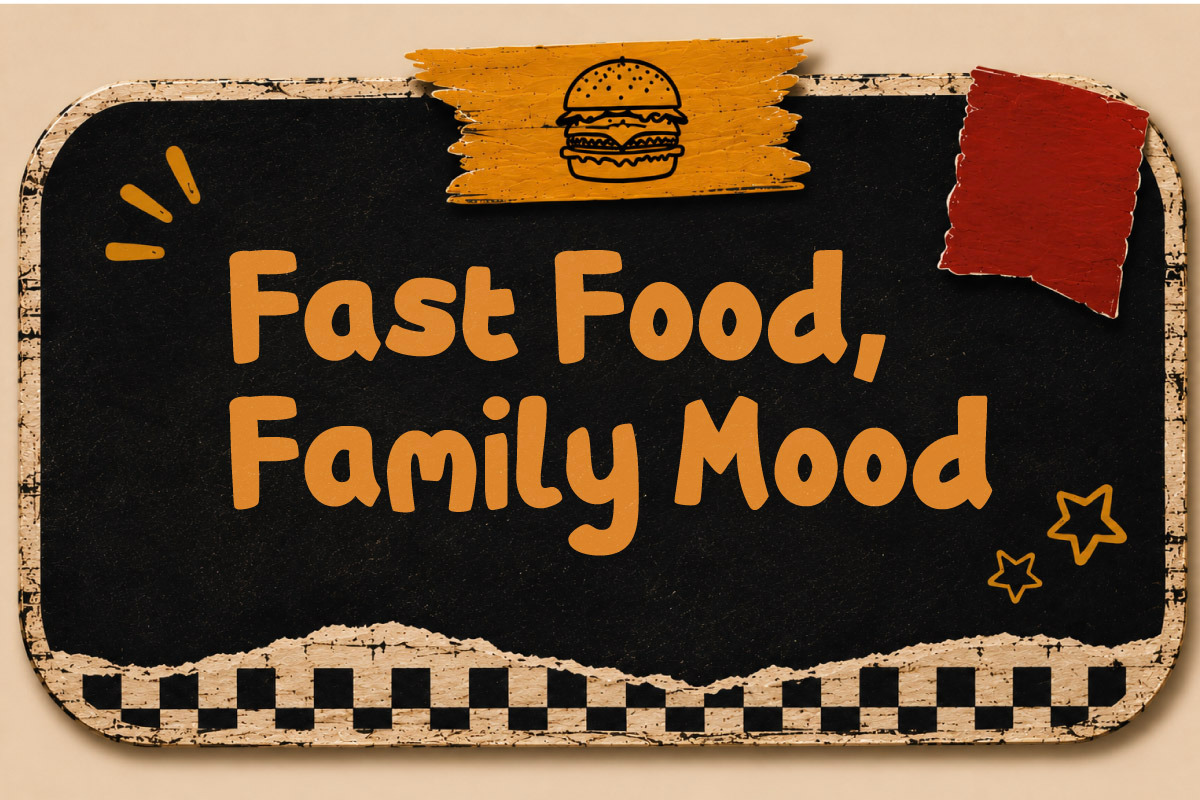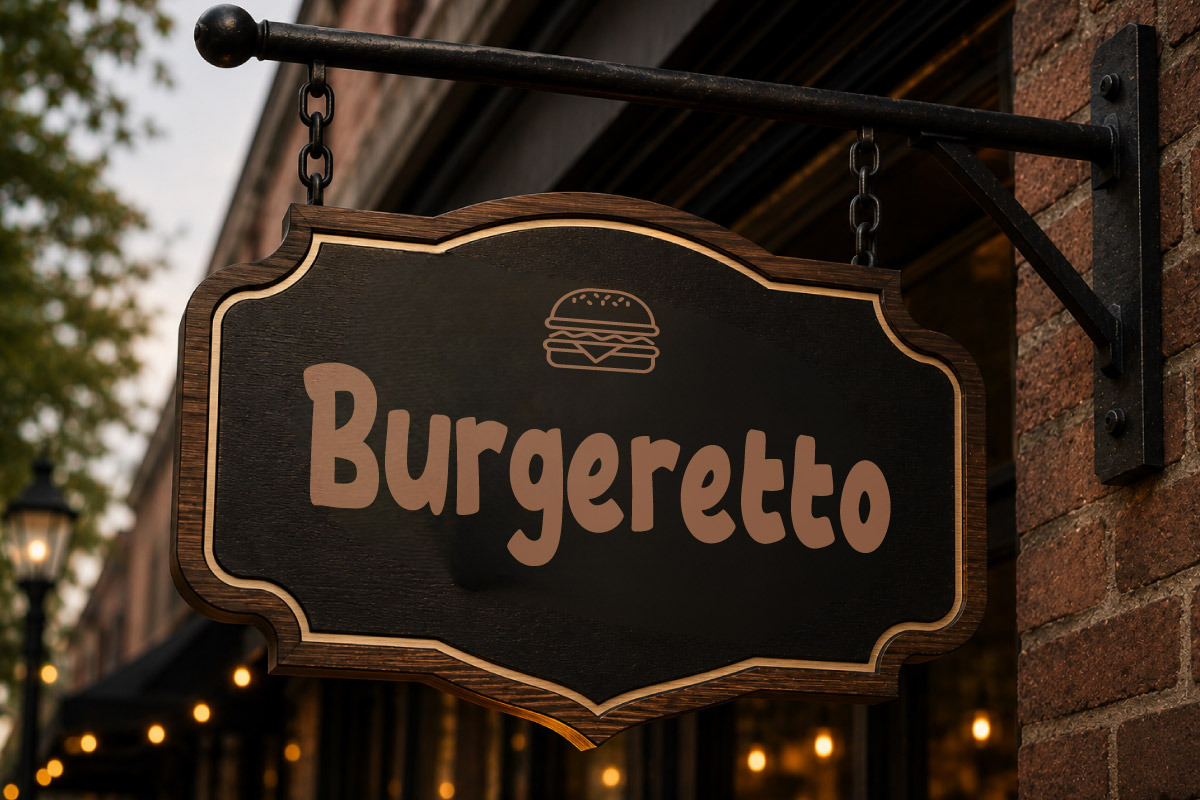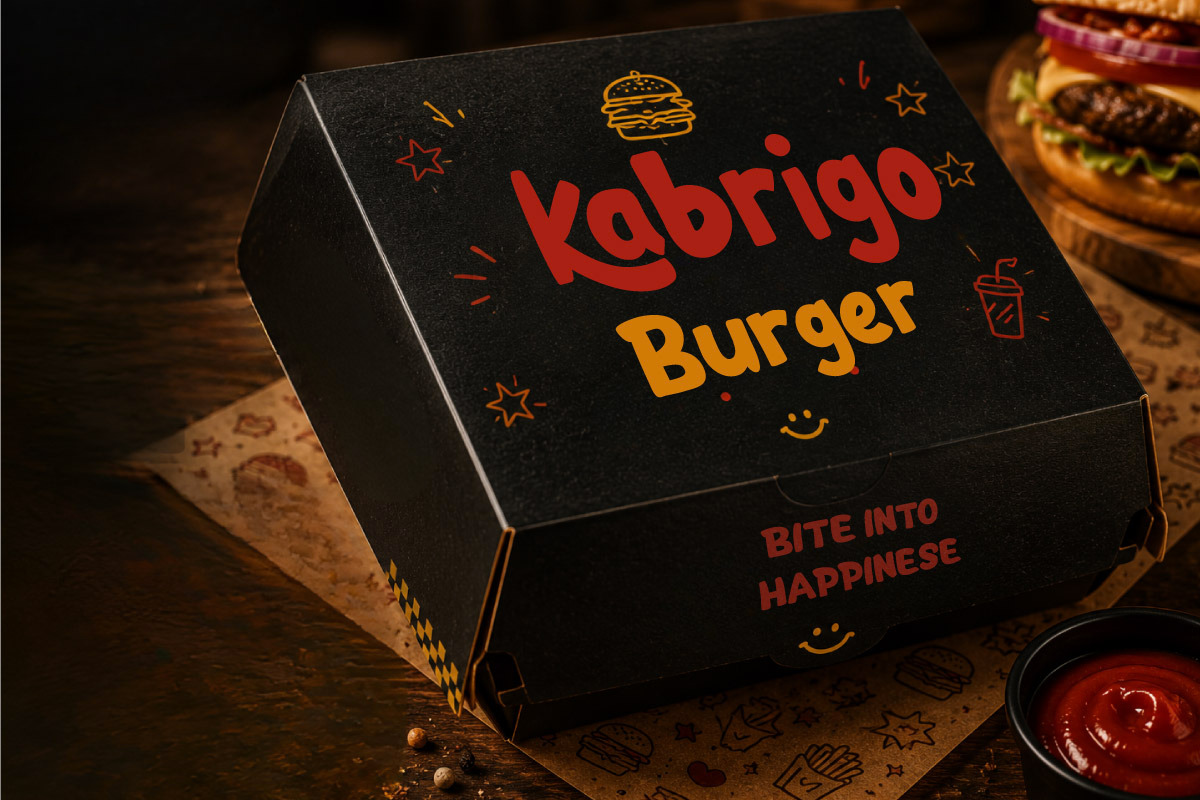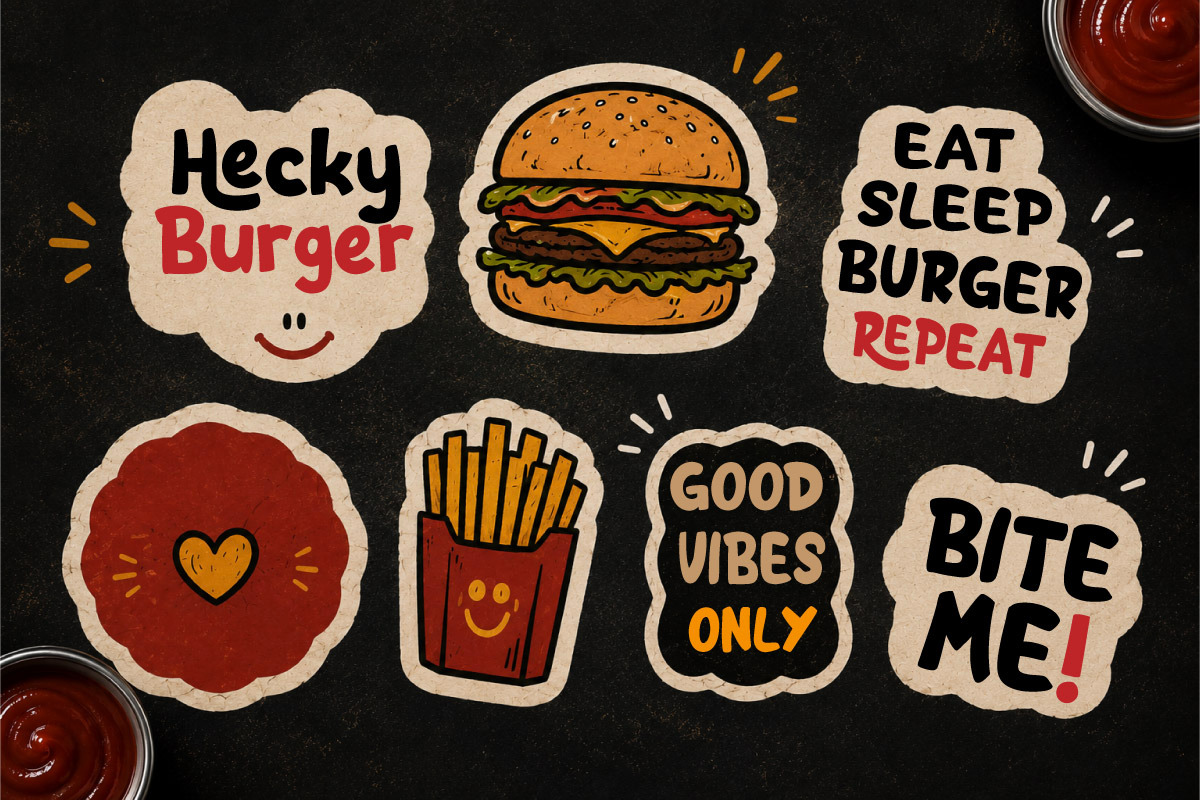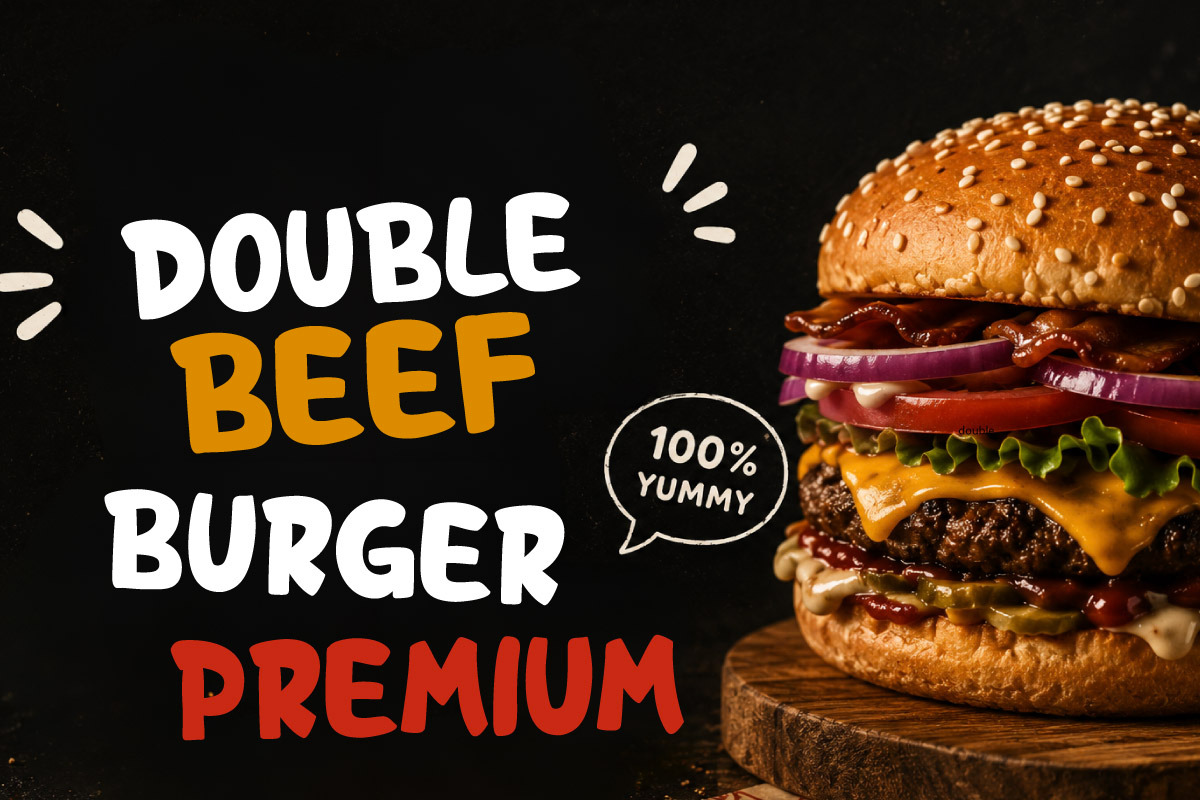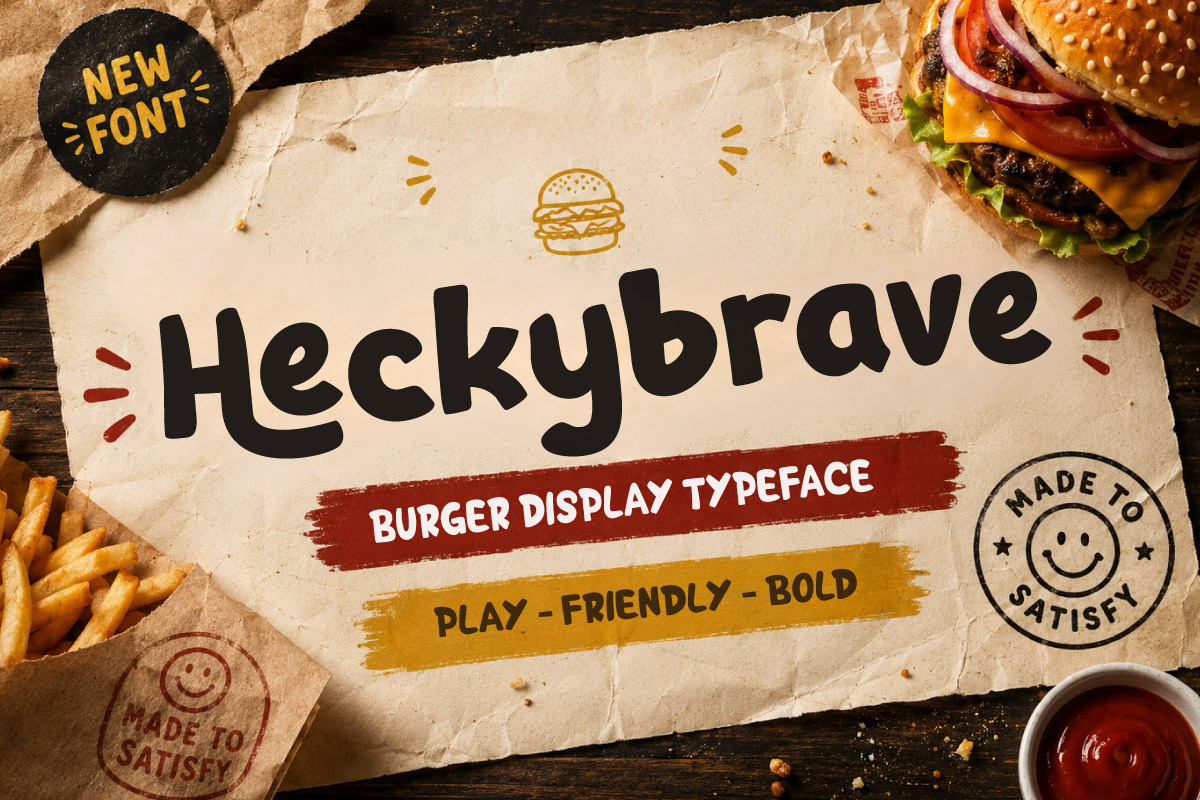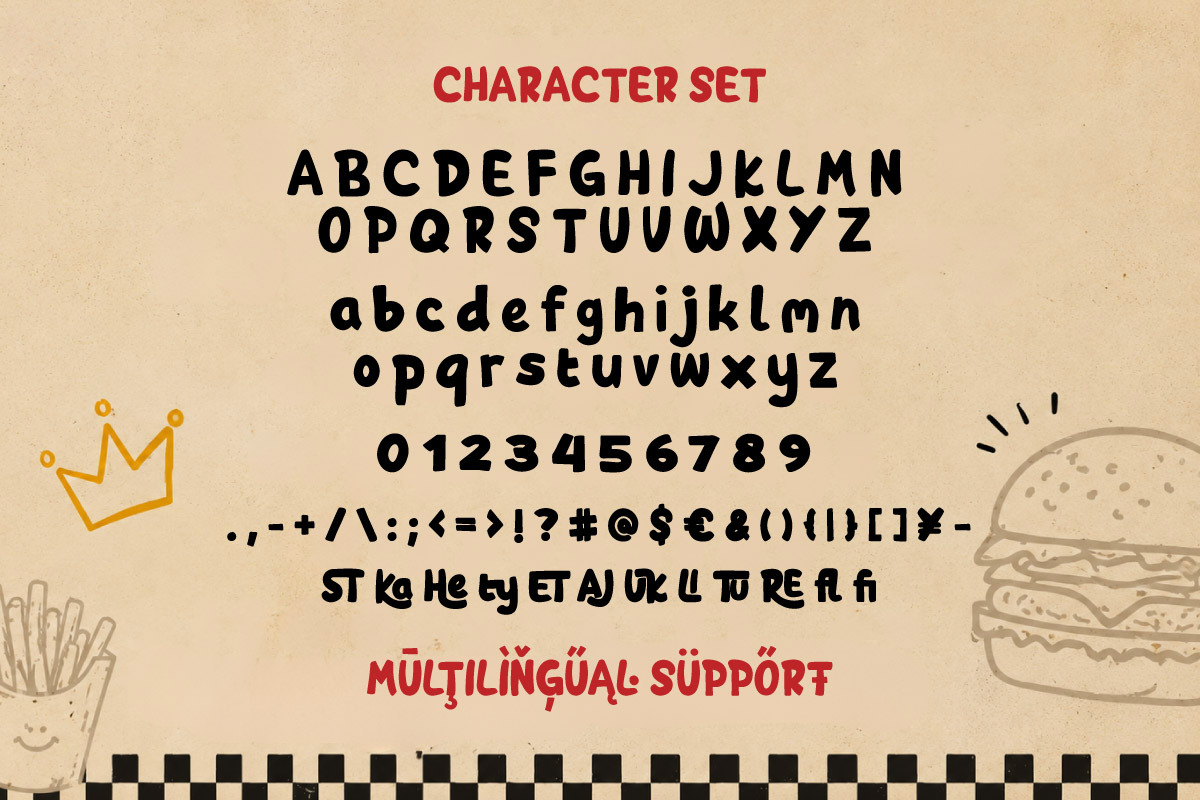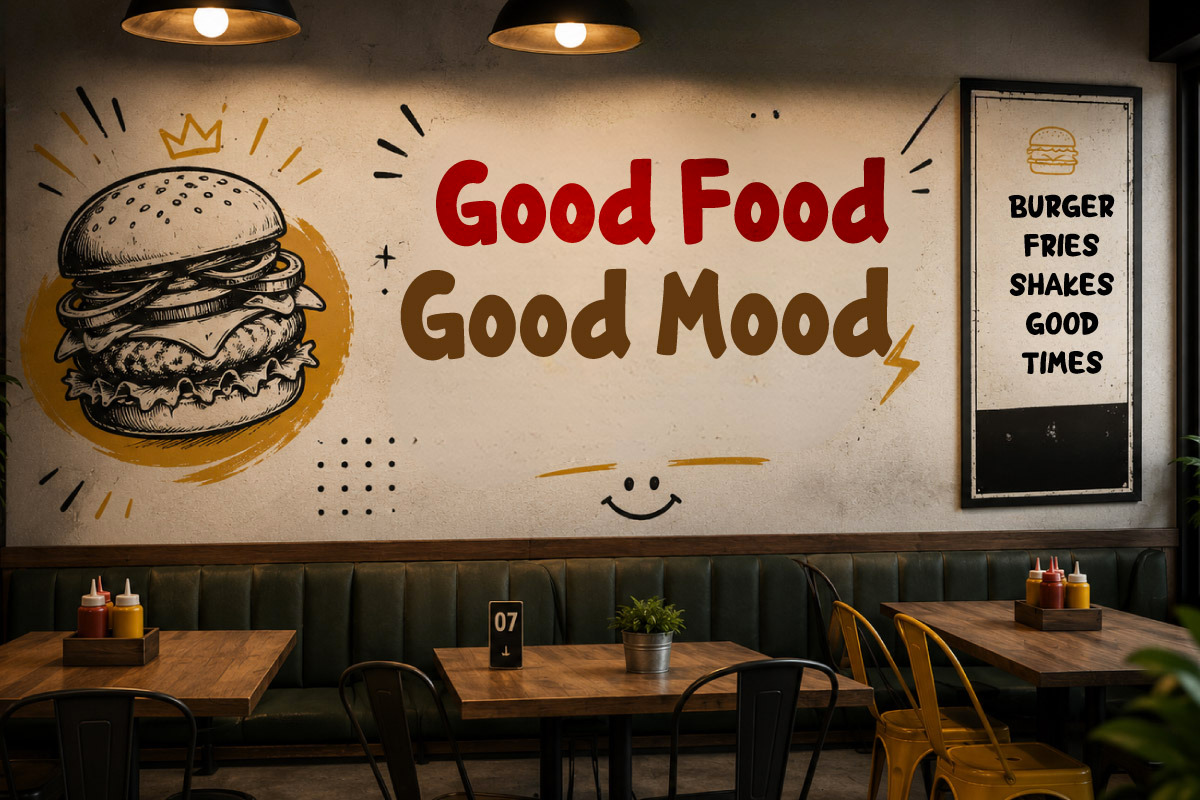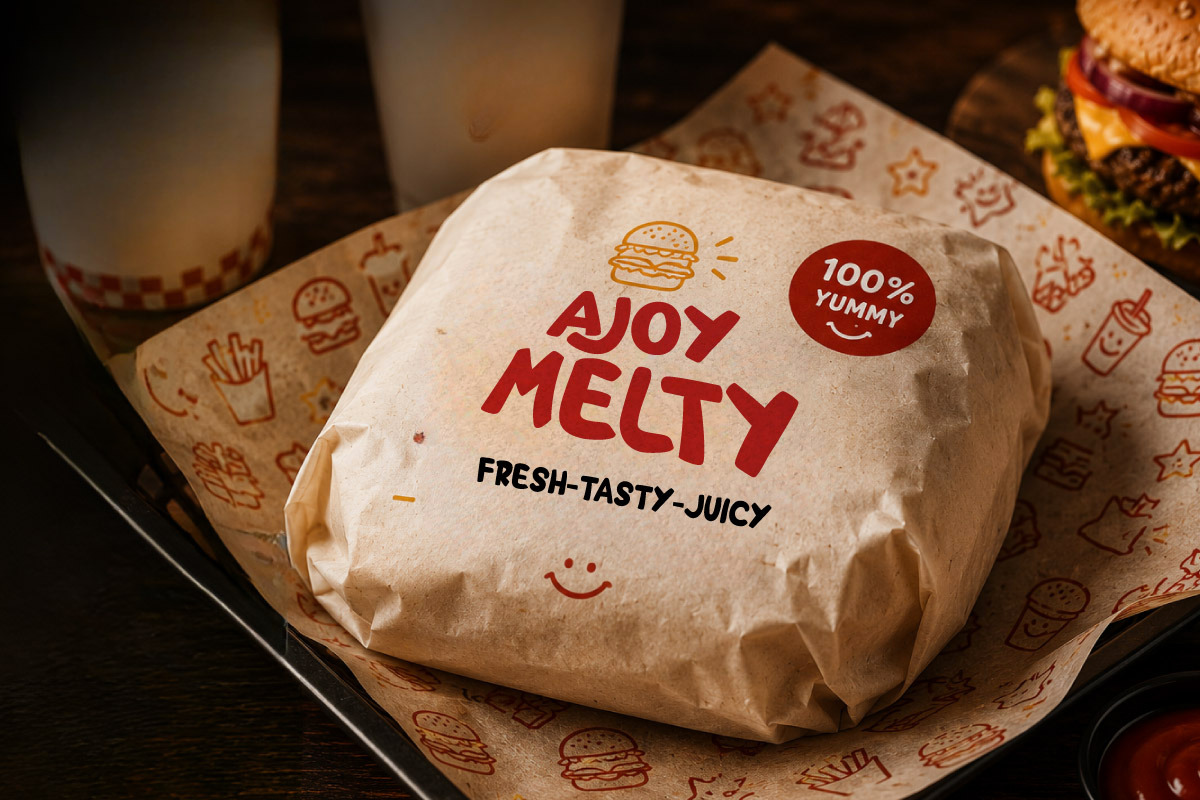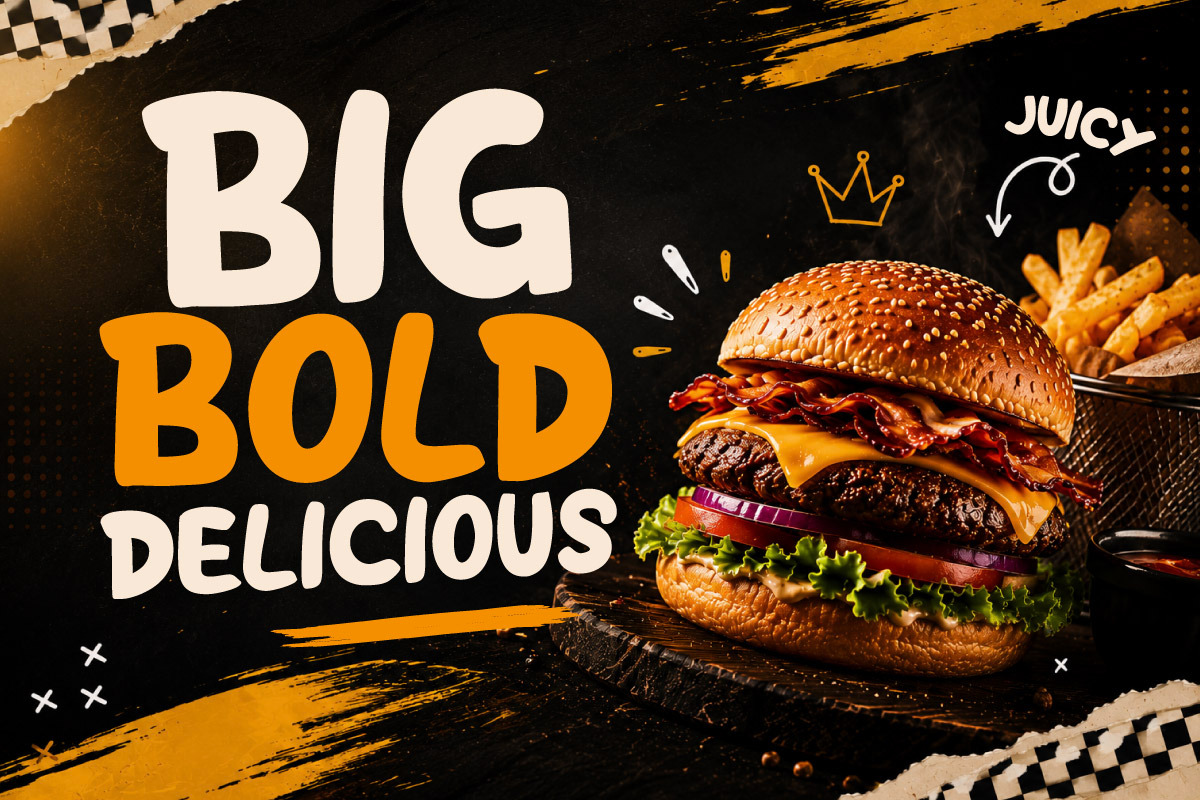
Heckybrave - Burger Display Font
Heckybrave is a bold and playful burger display font crafted to bring energy, flavor, and personality into every design. Featuring chunky letterforms with a handcrafted feel, this typeface delivers a fun and appetizing look that's perfect for modern food branding, fast-food promotions, and eye-catching marketing materials.
Designed for burger restaurants, food trucks, cafés, takeaway packaging, restaurant menus, product labels, social media content, posters, logos, and promotional campaigns, Heckybrave creates strong visual impact while remaining highly readable. Its cheerful style makes every headline stand out and gives your brand a memorable identity.
Whether you're building a burger brand, launching a street food business, designing snack packaging, creating restaurant advertisements, or producing modern culinary merchandise, Heckybrave adds a deliciously bold character that attracts customers and strengthens your visual branding.
- Multilingual Support: Fully supports 85+ languages, including:
Afrikaans, Albanian, Asu, Basque, Bemba, Bena, Breton, Catalan, Chiga, Cornish, Croatian, Czech, Danish, Dutch, Embu, English, Esperanto, Estonian, Filipino, Finnish, French, Friulian, Galician, Gusii, Hungarian, Indonesian, Irish, Italian, Kabuverdianu, Kalenjin, Kamba, Kikuyu, Kinyarwanda, Latvian, Lithuanian, Lower Sorbian, Luo, Luxembourgish, Luyia, Machame, Makhuwa-Meetto, Makonde, Malagasy, Maltese, Manx, Meru, Morisyen, North Ndebele, Norwegian Bokmål, Norwegian Nynorsk, Nyankole, Oromo, Polish, Portuguese, Quechua, Romanian, Romansh, Rombo, Rundi, Rwa, Samburu, Sango, Sangu, Scottish Gaelic, Sena, Serbian, Shambala, Shona, Slovak, Slovenian, Soga, Somali, Spanish, Swahili, Swedish, Swiss German, Taita, Teso, Turkish, Upper Sorbian, Uzbek (Latin), Volapük, Vunjo, Walser, Zulu.